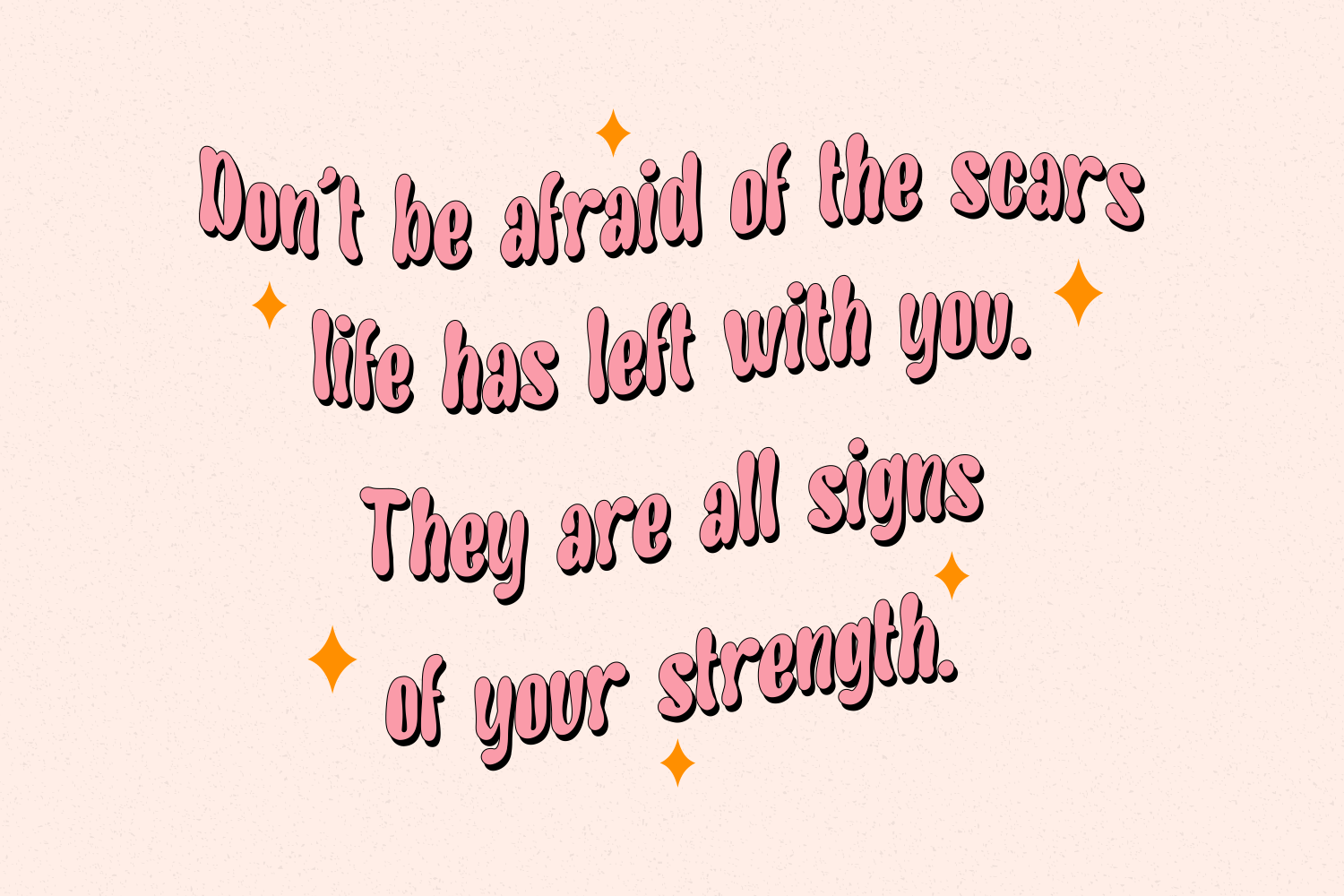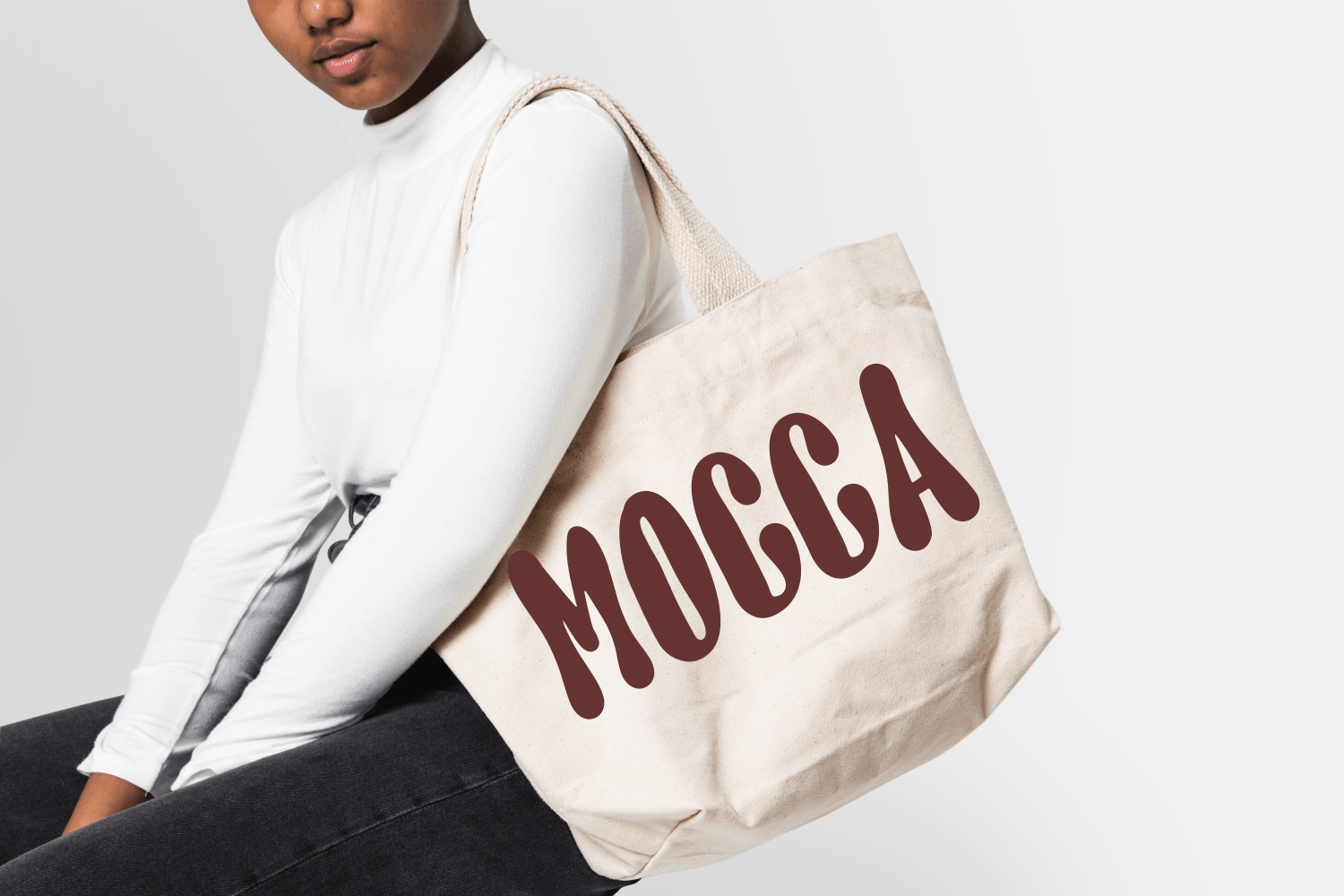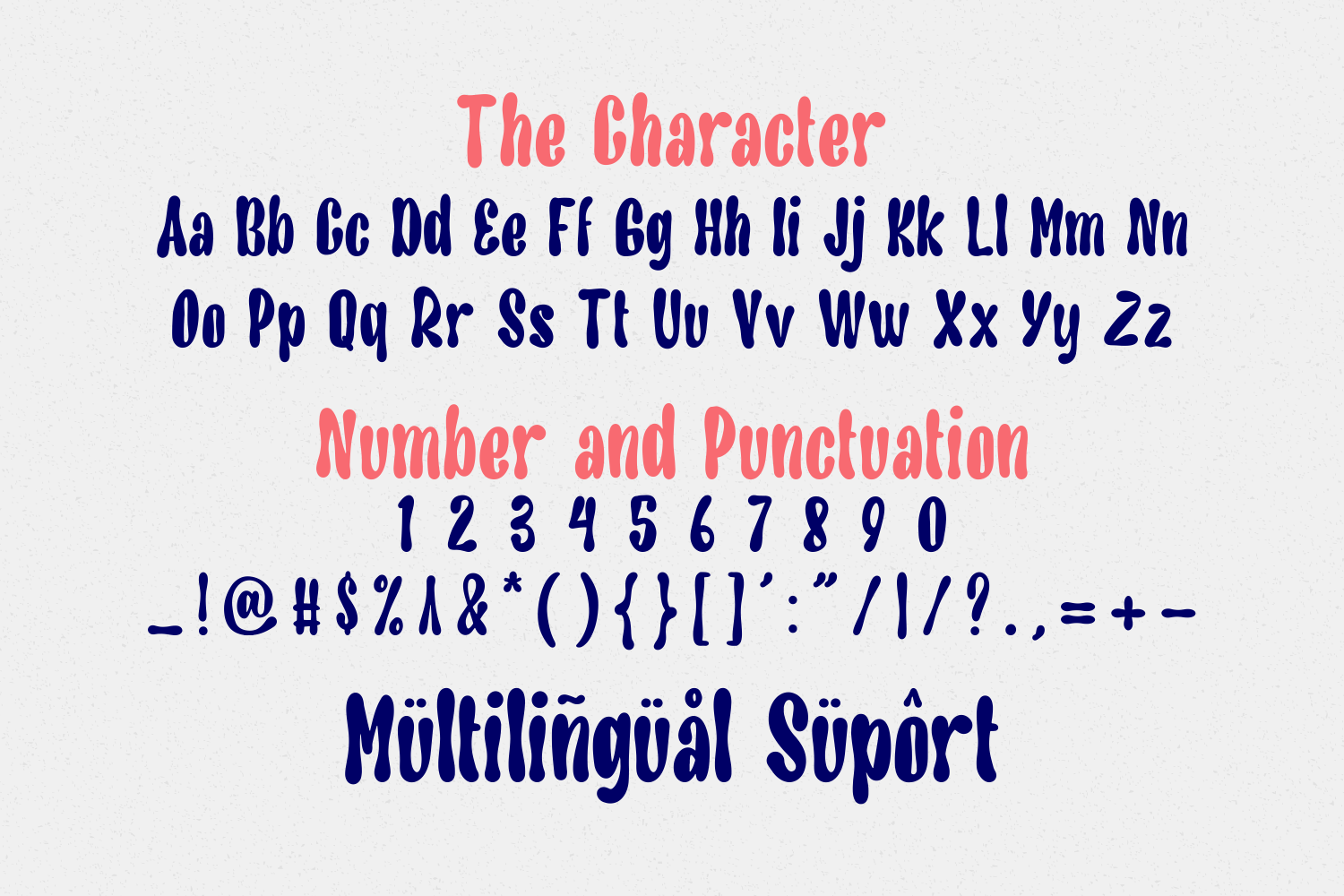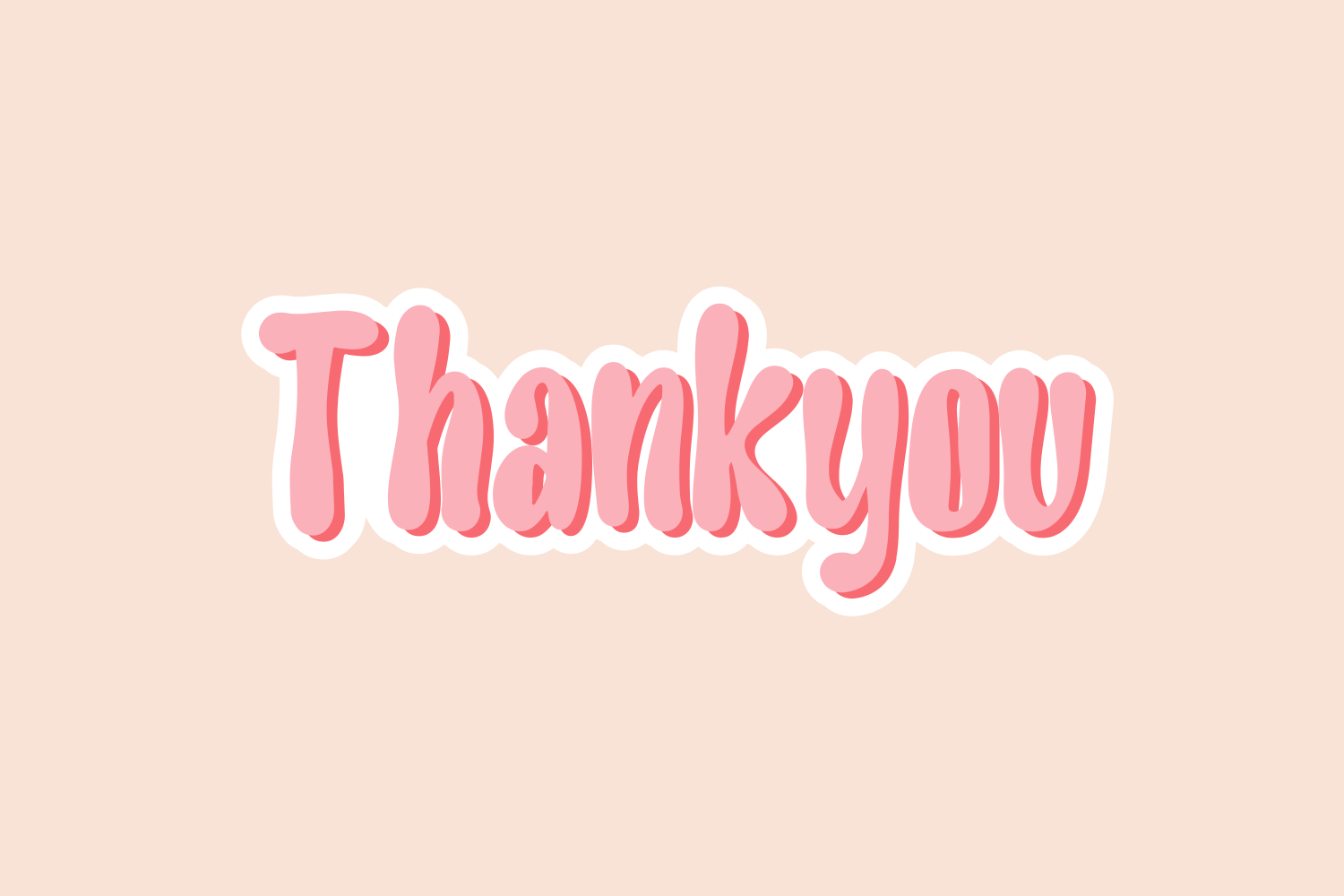
Liquidie Font
Liquidie Display Font is a fancy and elegant display font created to impress your audience and make your branding shine. Make your projects dance with this elegant and wonderful font wherever you use it. Use it for your headings, logos, ads, printed quotes, packaging, and even your website or social media branding. Every letter has a unique and beautiful touch, which will make your design come alive!